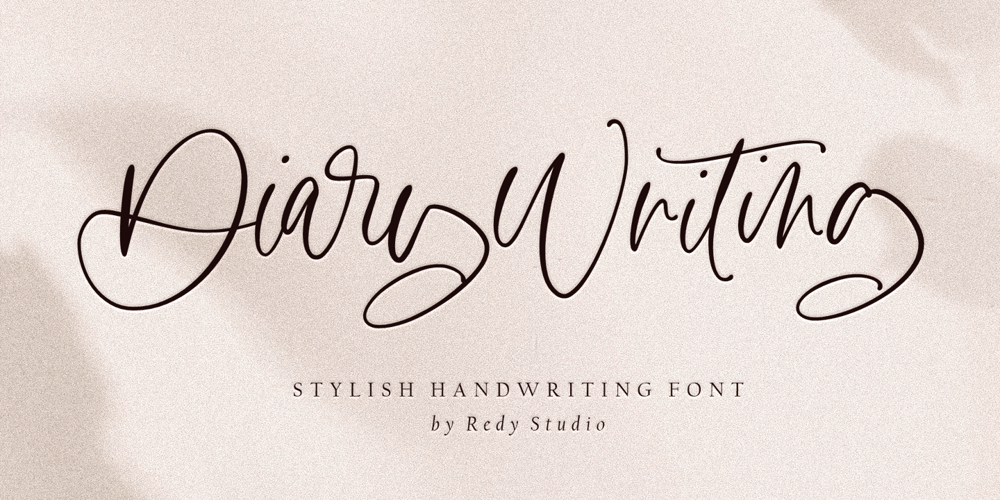
Diary Writing Font Family was designed by Nurul Fajri Redy and published by Redy Studio. Diary Writing contains 1 styles and family package options. Diary Writing – Modern Calligraphy FontAttention designers and bloggers! We created a new and fresh font that will add some life to your designs. Diary Writing font is a modern calligraphy font that has been created by 100% handwritten and contains basic letter characters, numerals, and symbols and comes with a full range of punctuation. Diary writing font is a modern calligraphy font with varying stroke thickness, inspired by love and passion. With its modern character, you can use this font for wedding invitations, formal events, quotes. It is a good choice for high fashion and luxury products, premium logos and branding, editorial designs. This handwritten font will give your designs an attractive appearance and will liven up even the most boring text. Take a look!Diary Writing features: A full set of upper & lowercase characters Numbers & punctuation 76 Gorgeous ligatures A full set of alternate lowercase characters Multilingual symbols PUA Encoded Characters – Fully accessible without additional design software. Feel free to give me a message if you have a problem or question. Thank you so much for taking the time to look at one of our products.